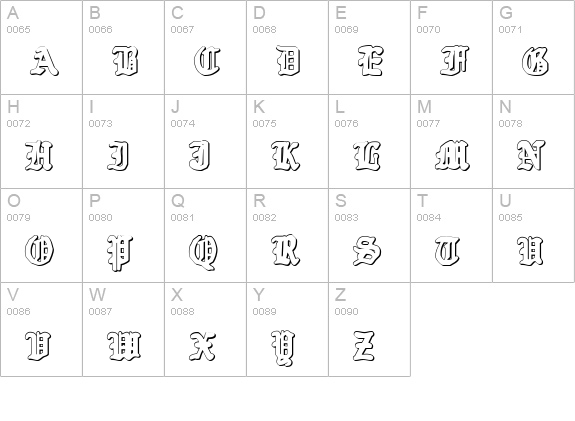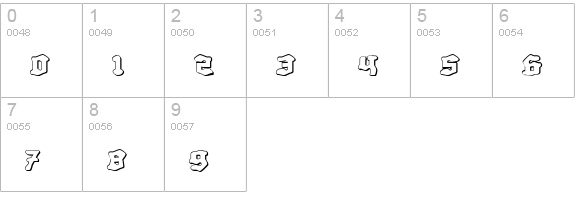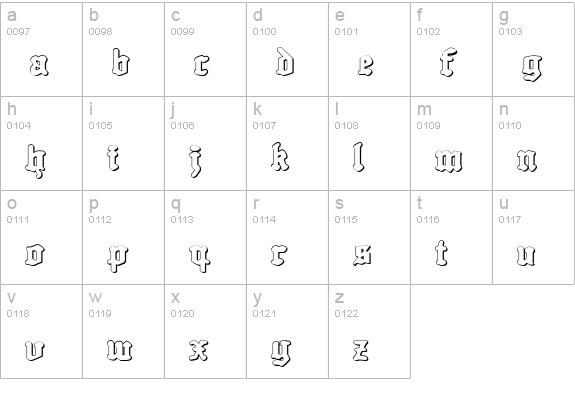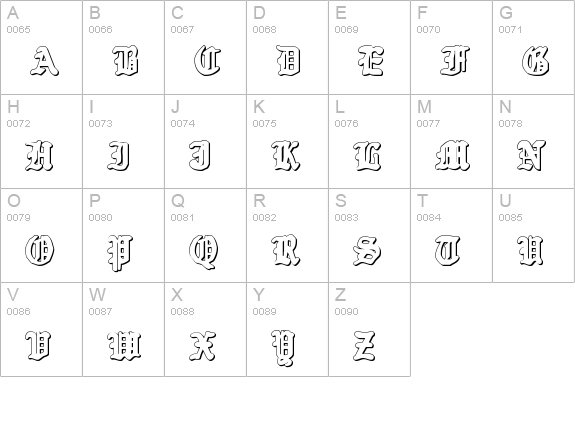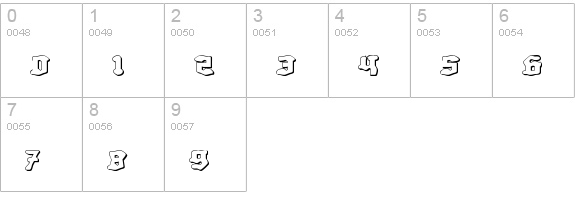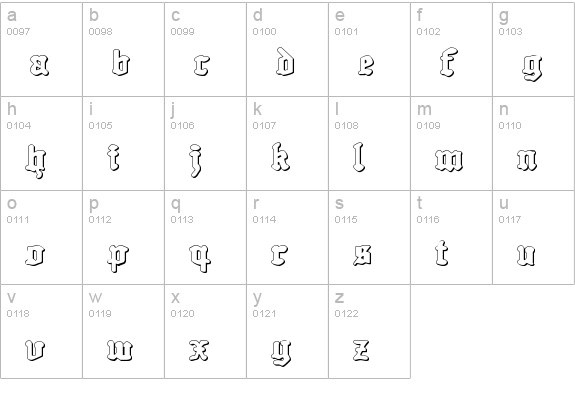
Quest Knight 3D Font Details
Embark on a typographic adventure with the captivating Quest Knight 3D font! This font is perfect for projects that require a touch of medieval charm and fantasy. The intricately designed 3D effect gives your text a bold and dynamic appearance, making it stand out in any design. Whether you're creating posters, logos, or game graphics, Quest Knight 3D font adds a unique and adventurous element to your work. Best of all, this font is available for free download exclusively at FontsMarket.com. Don't miss the chance to add this stunning font to your collection and bring a touch of fantasy to your designs. Download Quest Knight 3D font today and let your creativity soar to new heights!